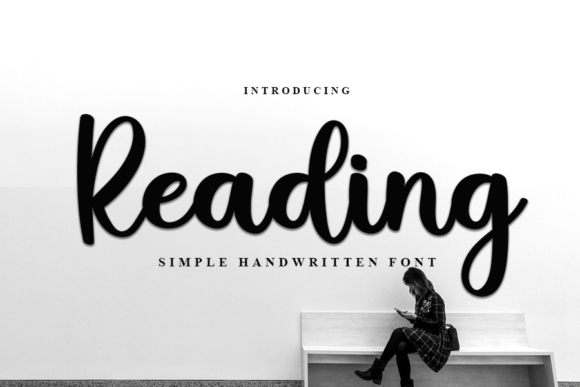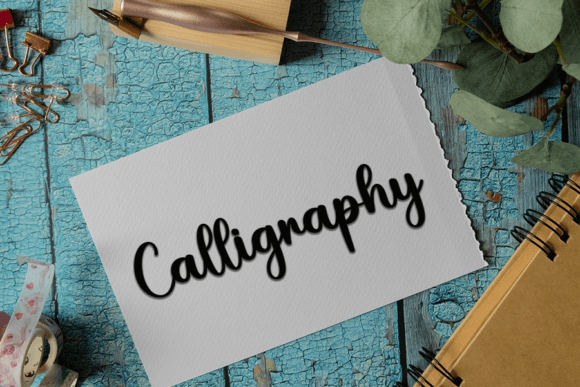
Reading Font
Reading is a bold, gorgeous script font. Whether you’re using it for crafts, digital design, presentations, or making greeting cards, this font has the potential to become your favorite go-to font, no matter the occasion.